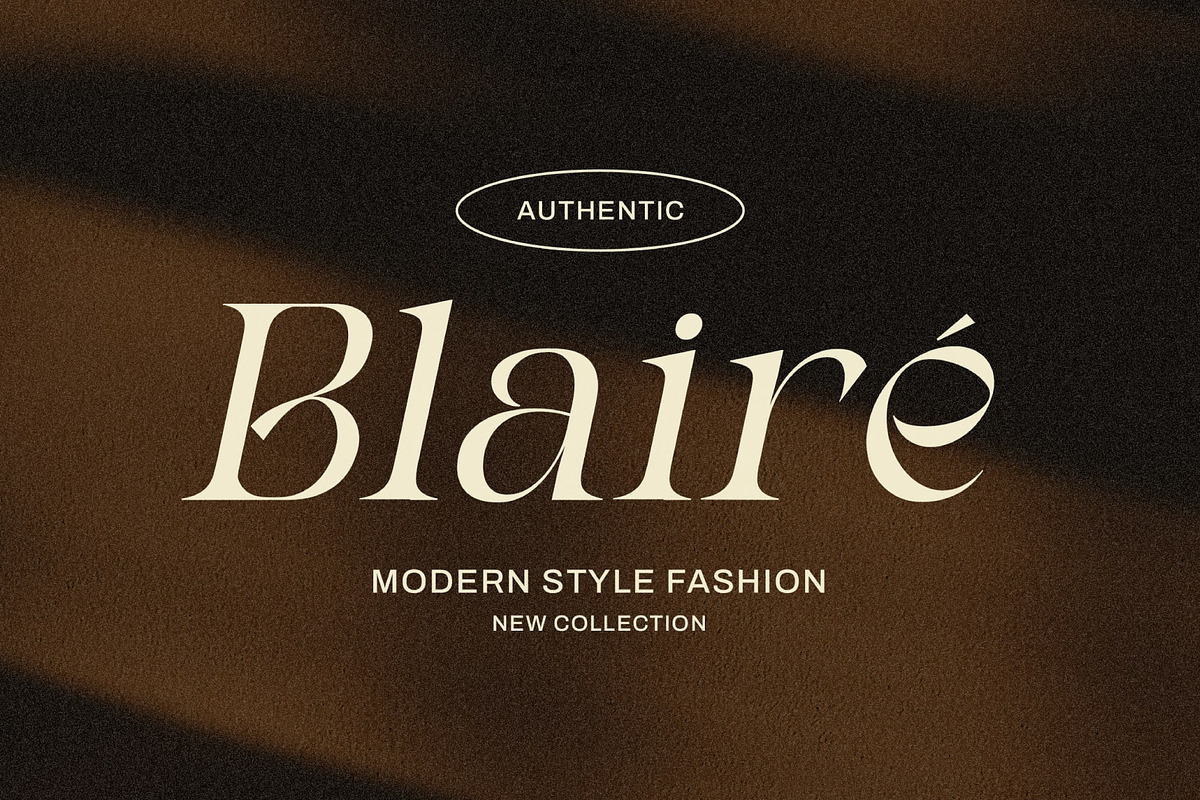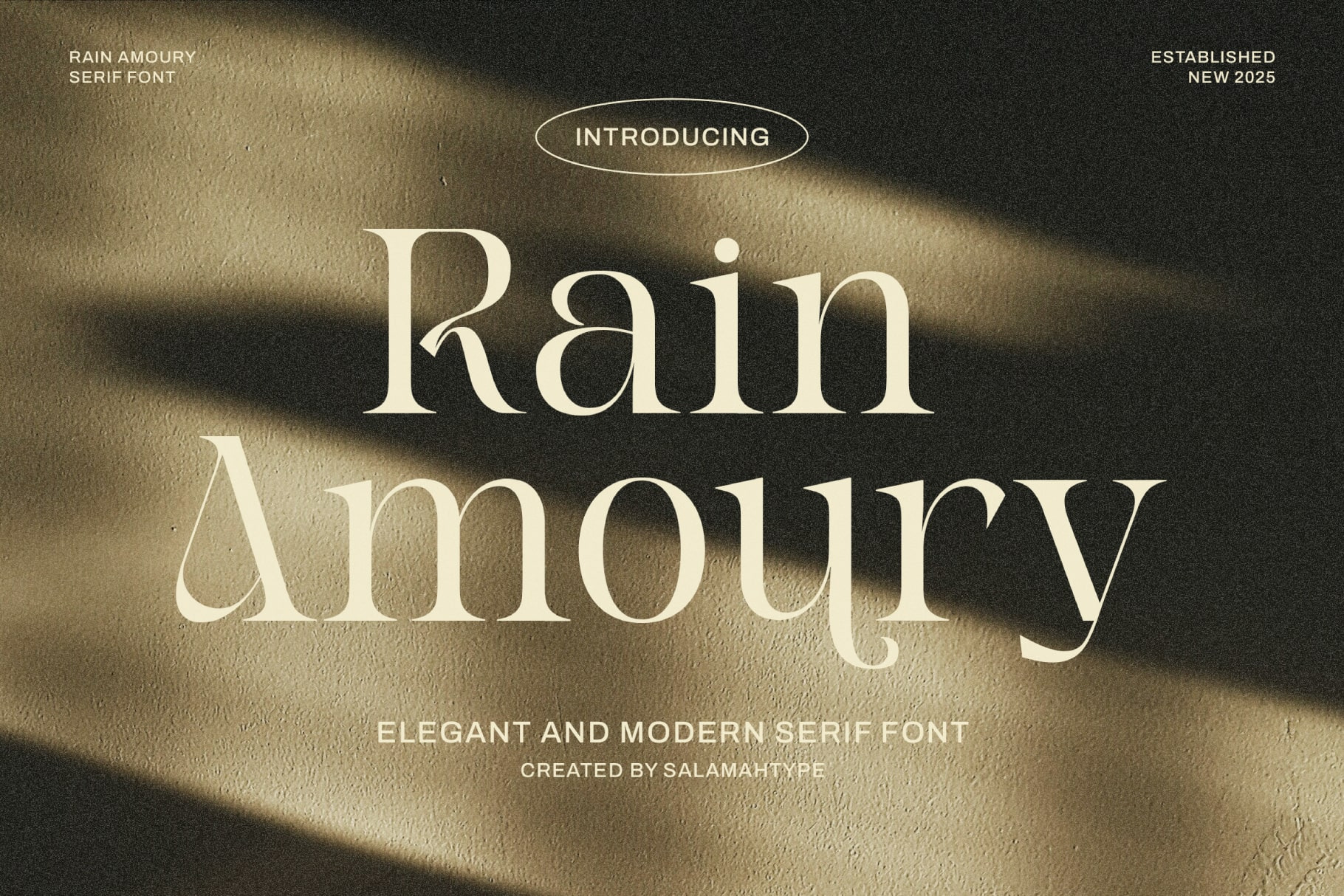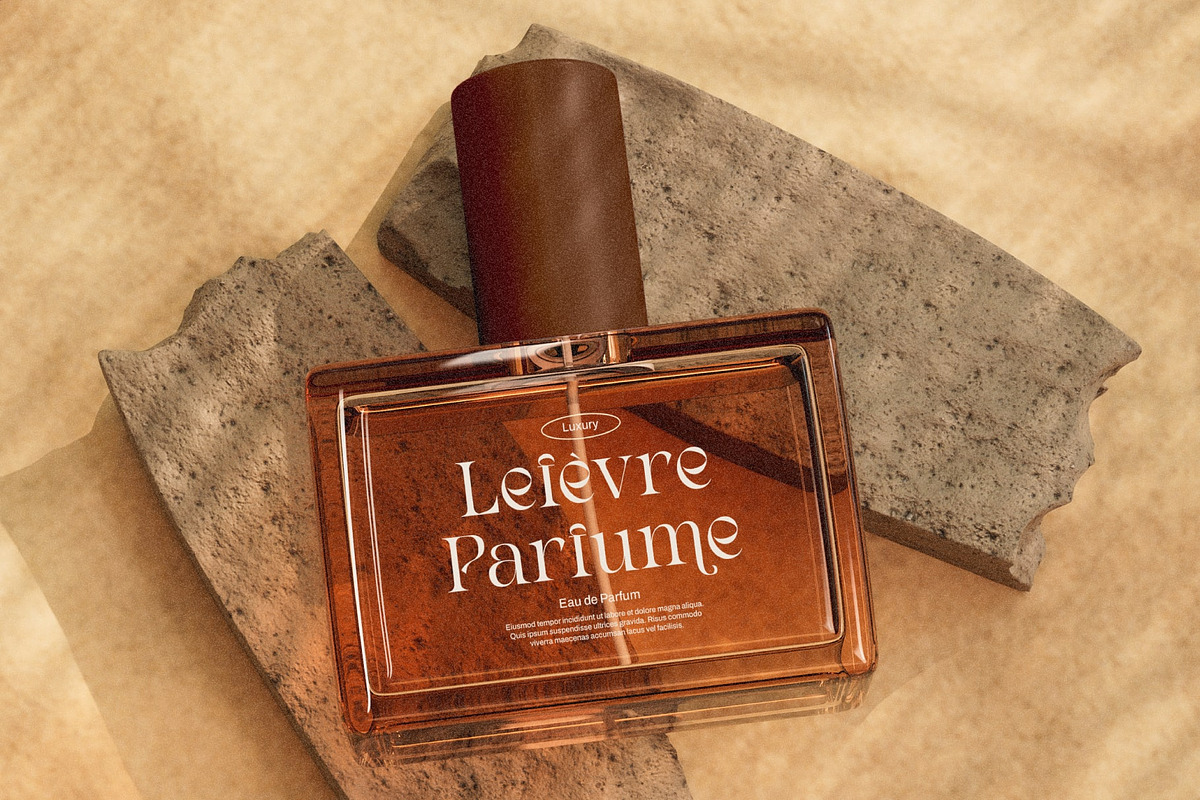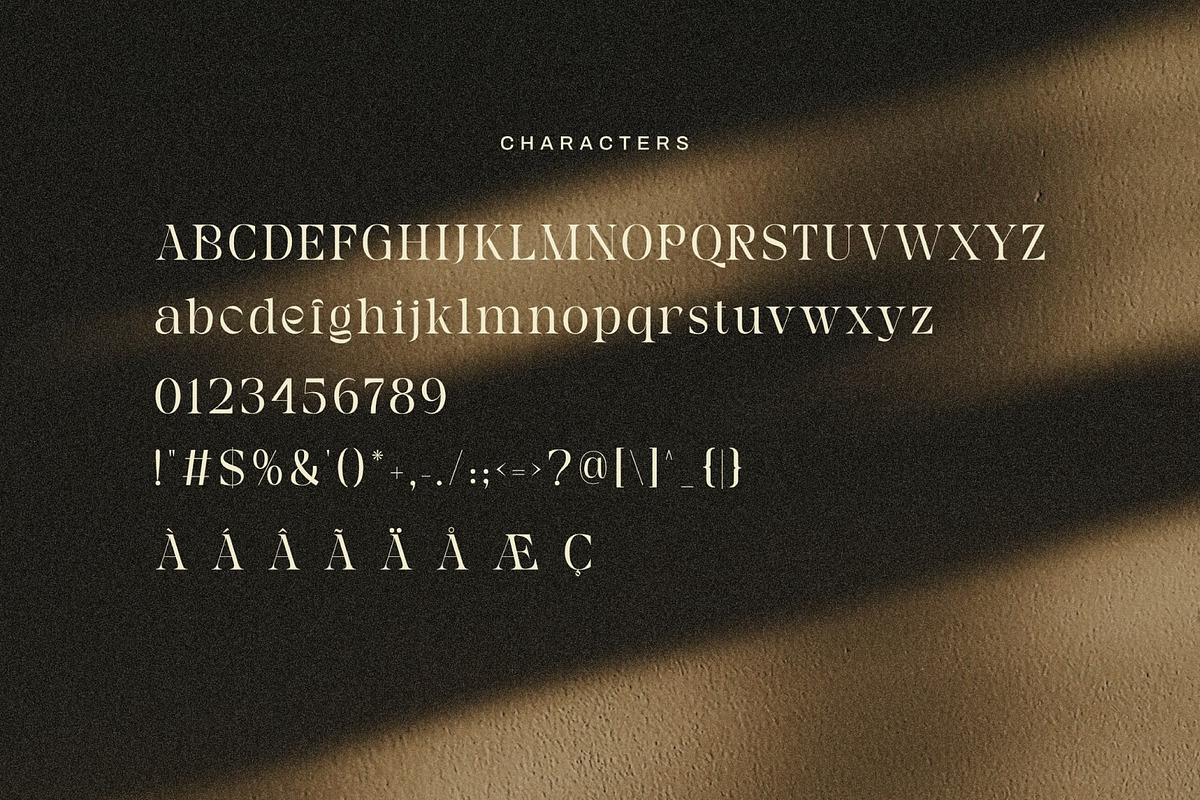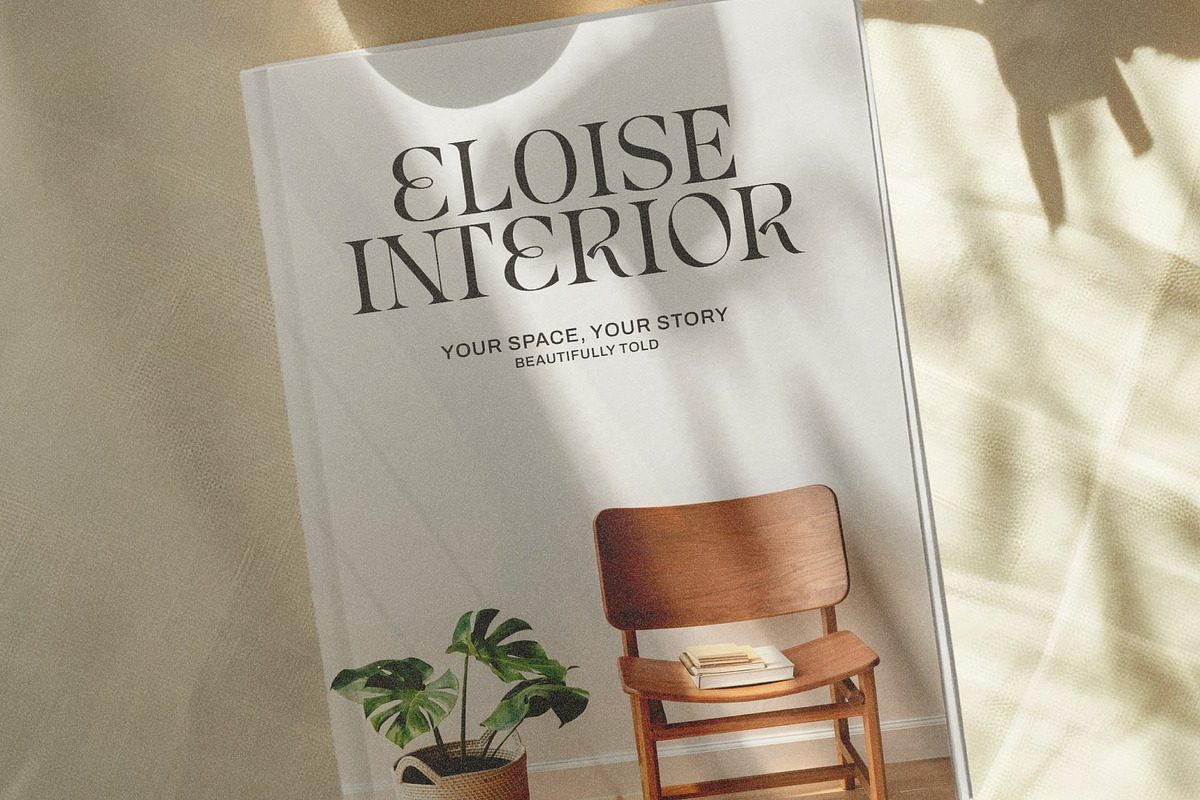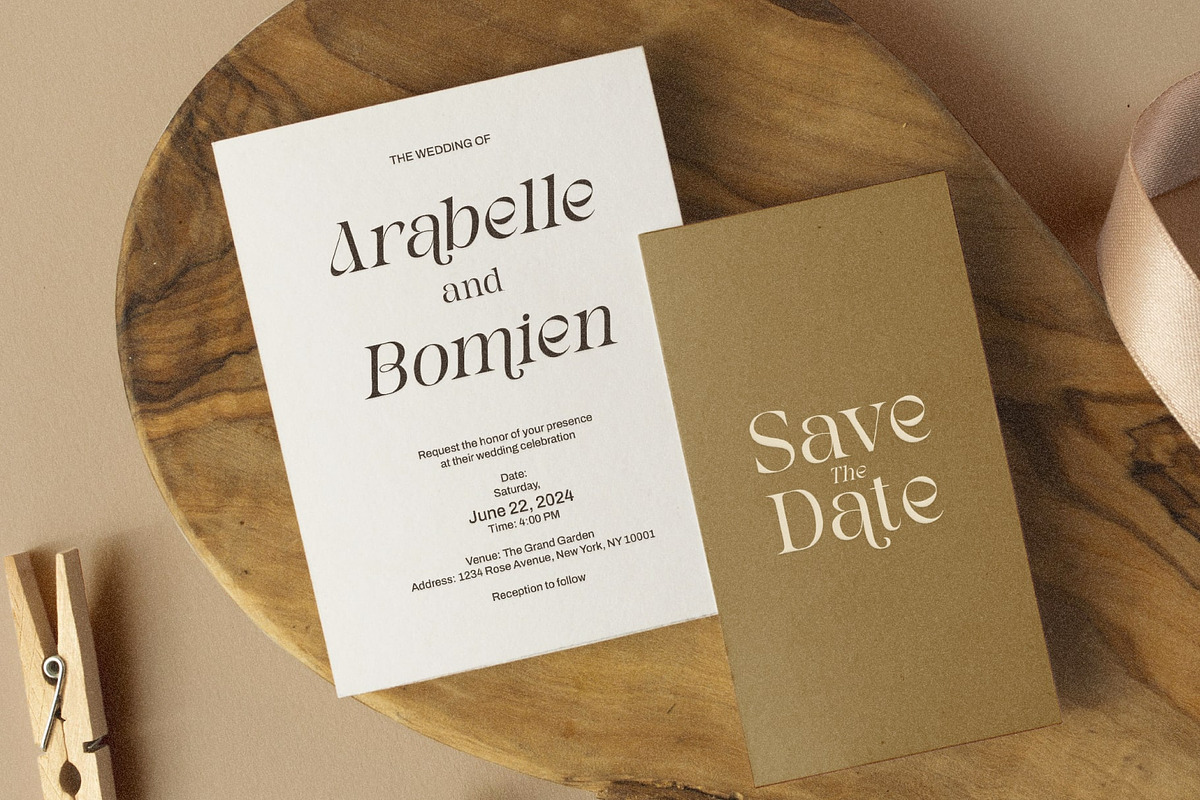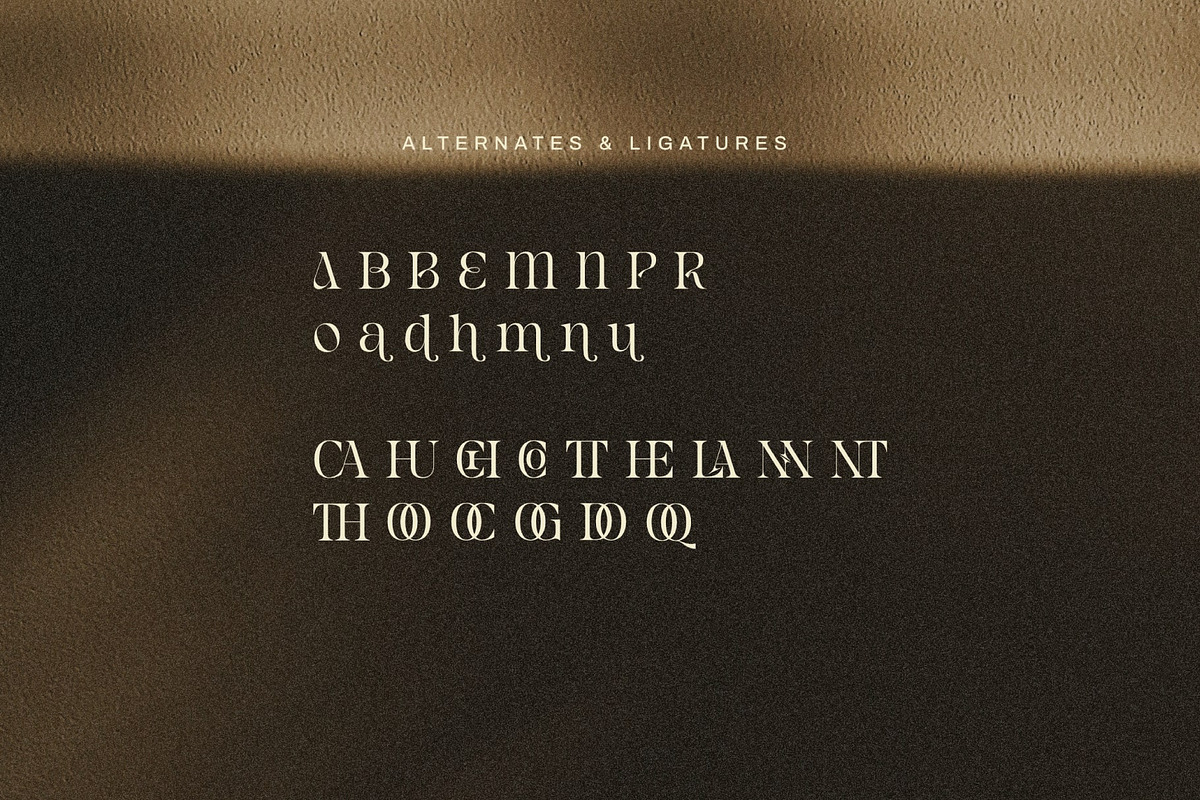
Rain Amoury - Elegant Font
Rain Amoury is a sleek, stylish serif font that’s perfect for logos, weddings, beauty brands, fashion, and more. With smooth curves, fancy details, and an oblique version, it makes any project look polished and high-end.
- Oblique Version